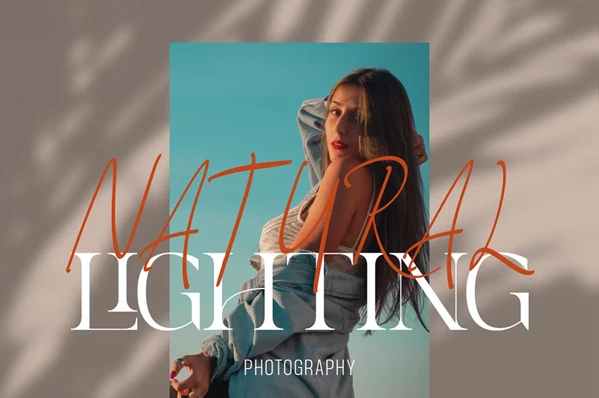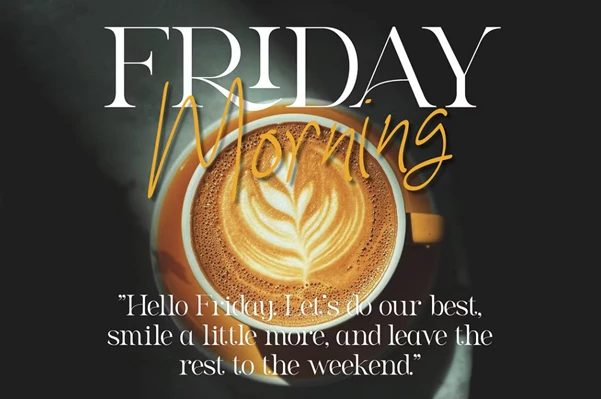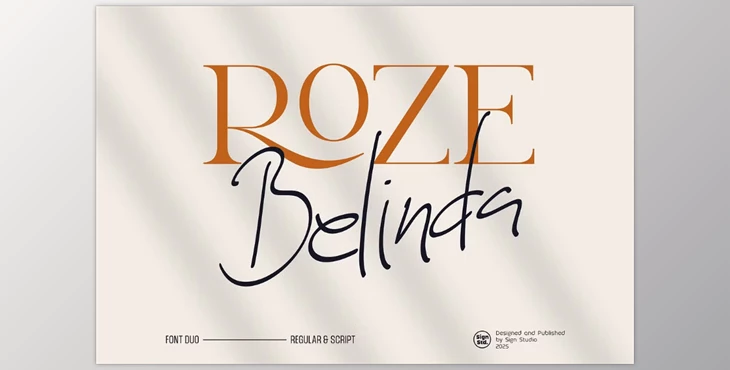
Roze Belinda - Display Font Duo:
The Roze Belinda - Display Font Duo is comprised of an elegant serif paired with a relaxed script, perfect for adding charm and sophistication to any design project. It's made the best use of branding, logo designing, and creating social media content because of its classic and modern aesthetic. This font duo can single-handedly elevate a warm design to make it look sophisticated and polished effortlessly. It's perfect for people looking to refine their designs.
Some great features of Roze Belinda - Display Font Duo:
- Uppercase & Lowercase
- Stylistic Sets & Ligatures
- Numbering and Punctuation
"Roze Belinda - Display Font Duo" Samples: